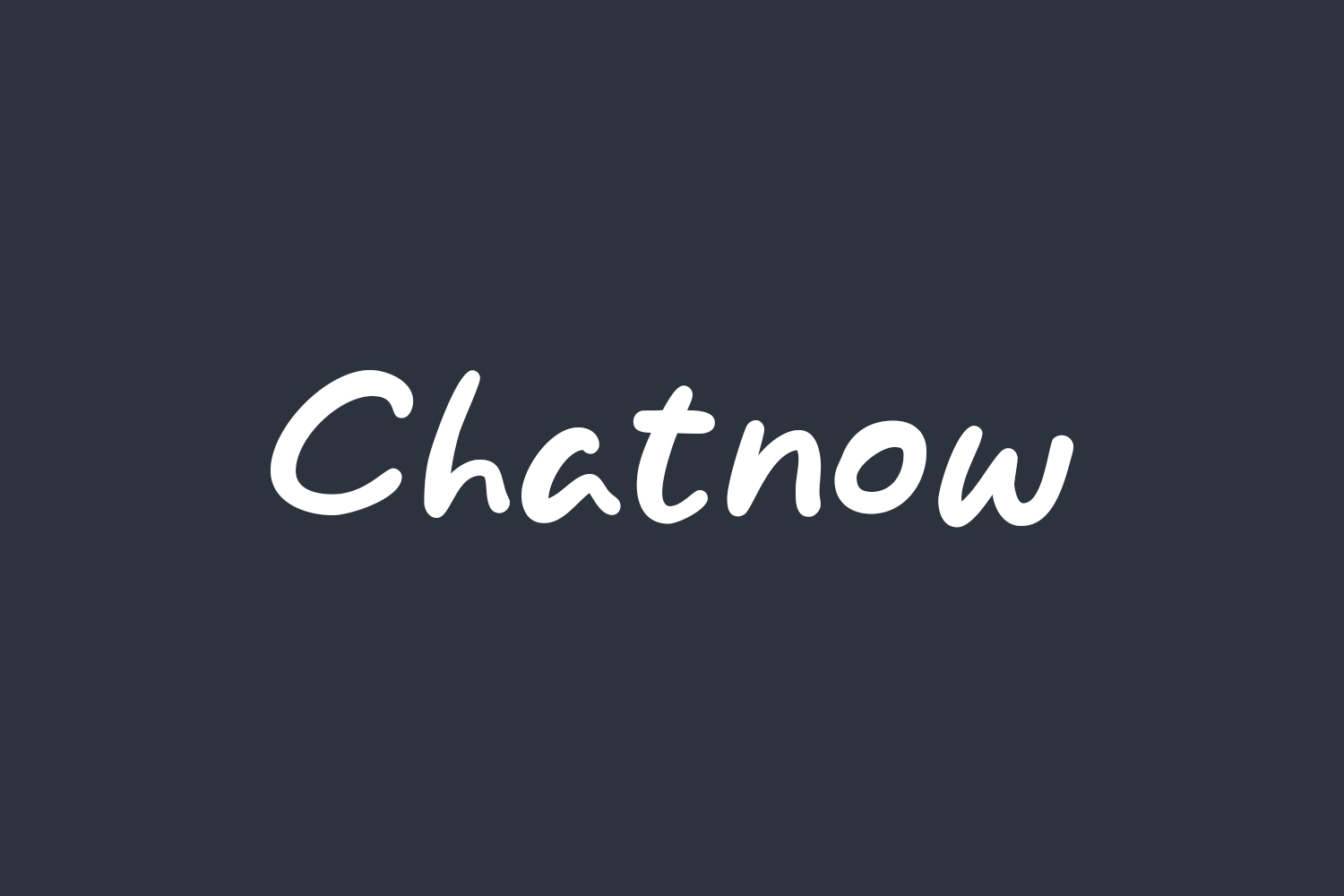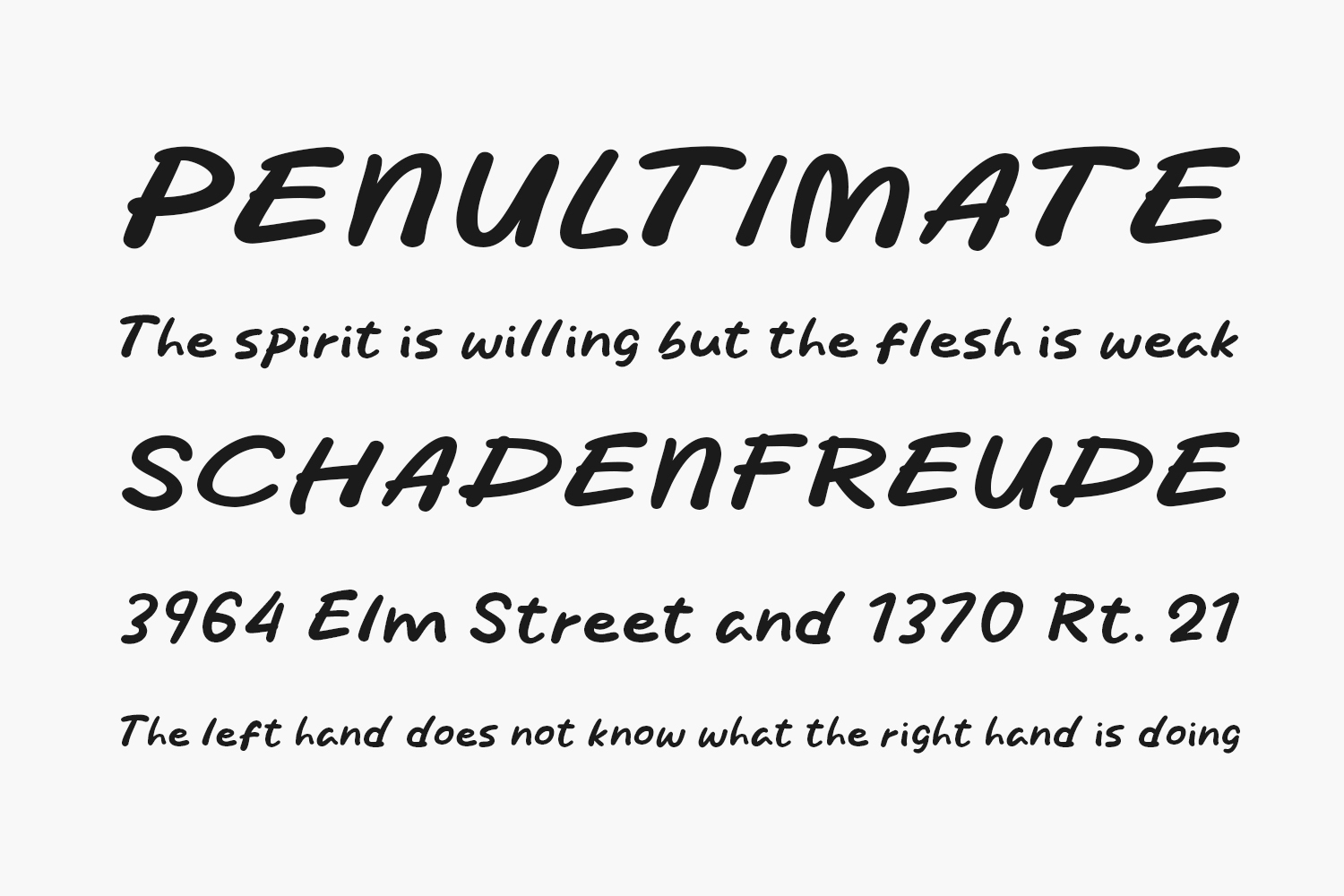
Chatnow Free Font, a contemporary and charming display typeface, is ideal for a variety of applications including posters, logos, magazines, book covers, banners, and beyond! Embrace this remarkable font to craft delightful designs. Its versatility seamlessly complements a vast array of projects, enhancing your creative concepts and ensuring they captivate attention. Chatnow Free Font is free for personal or commercial use.